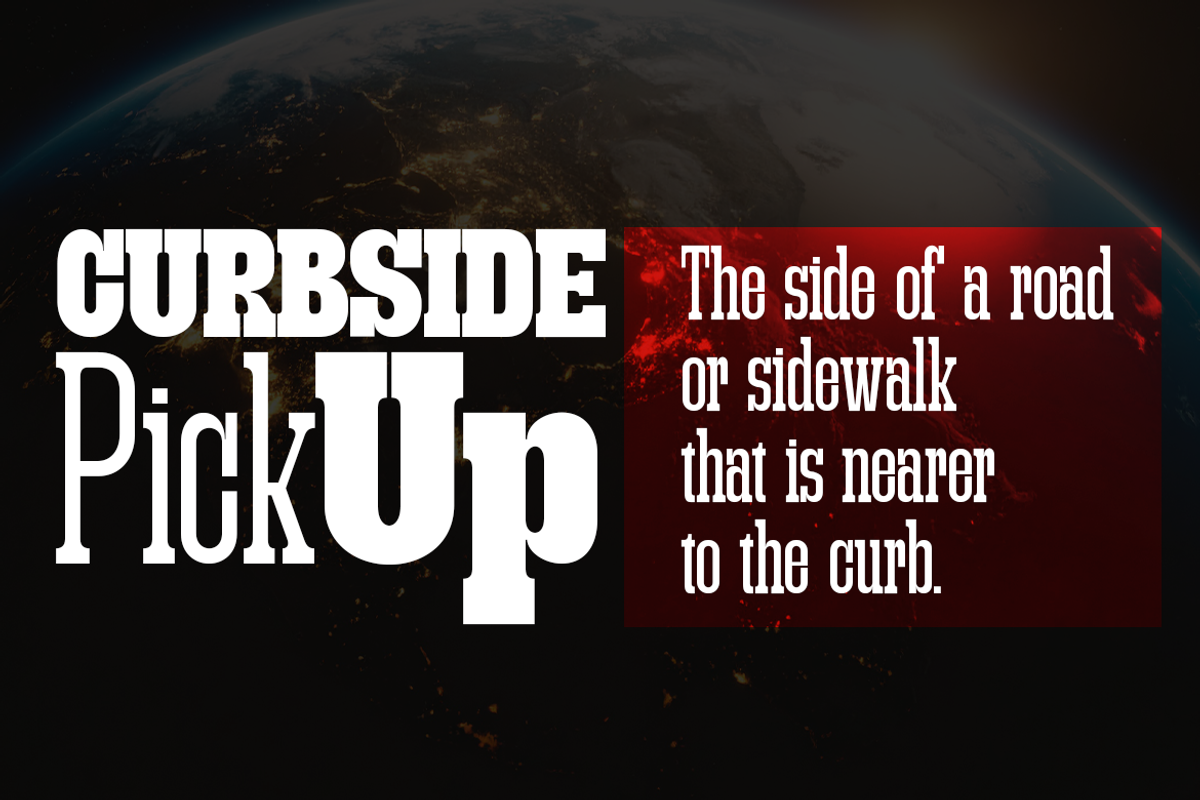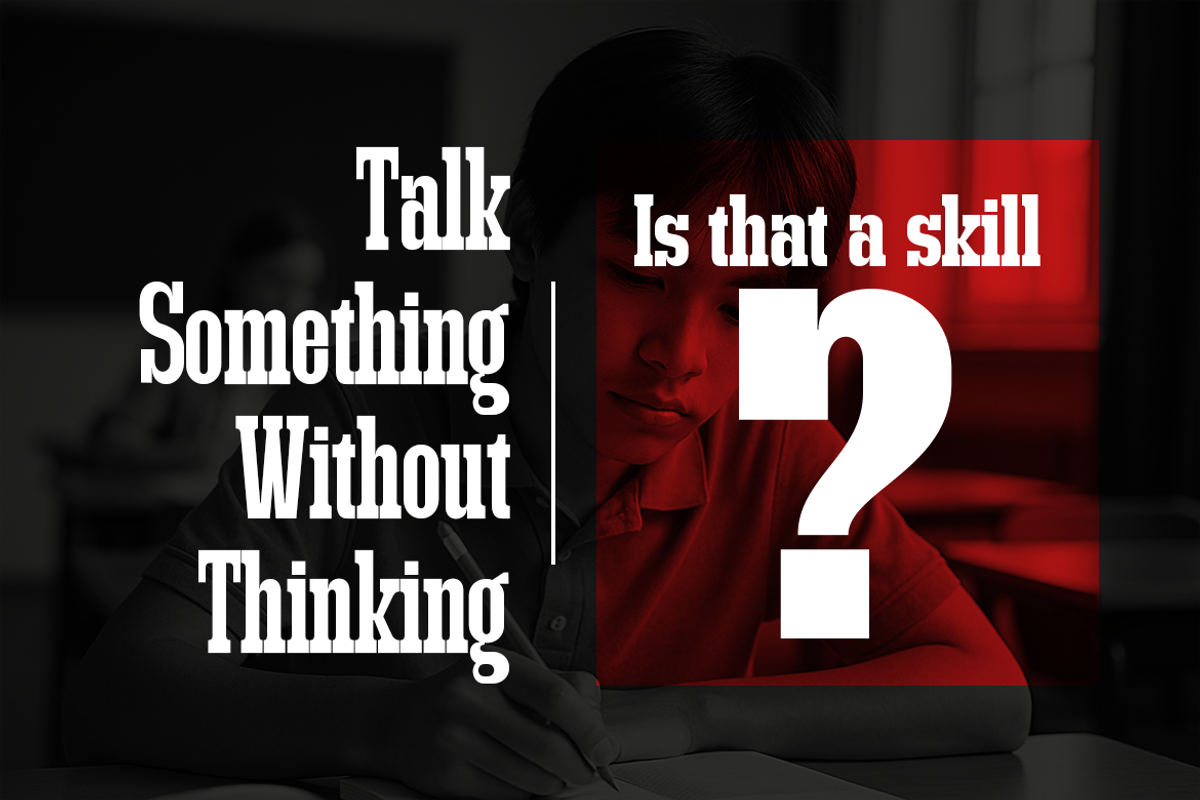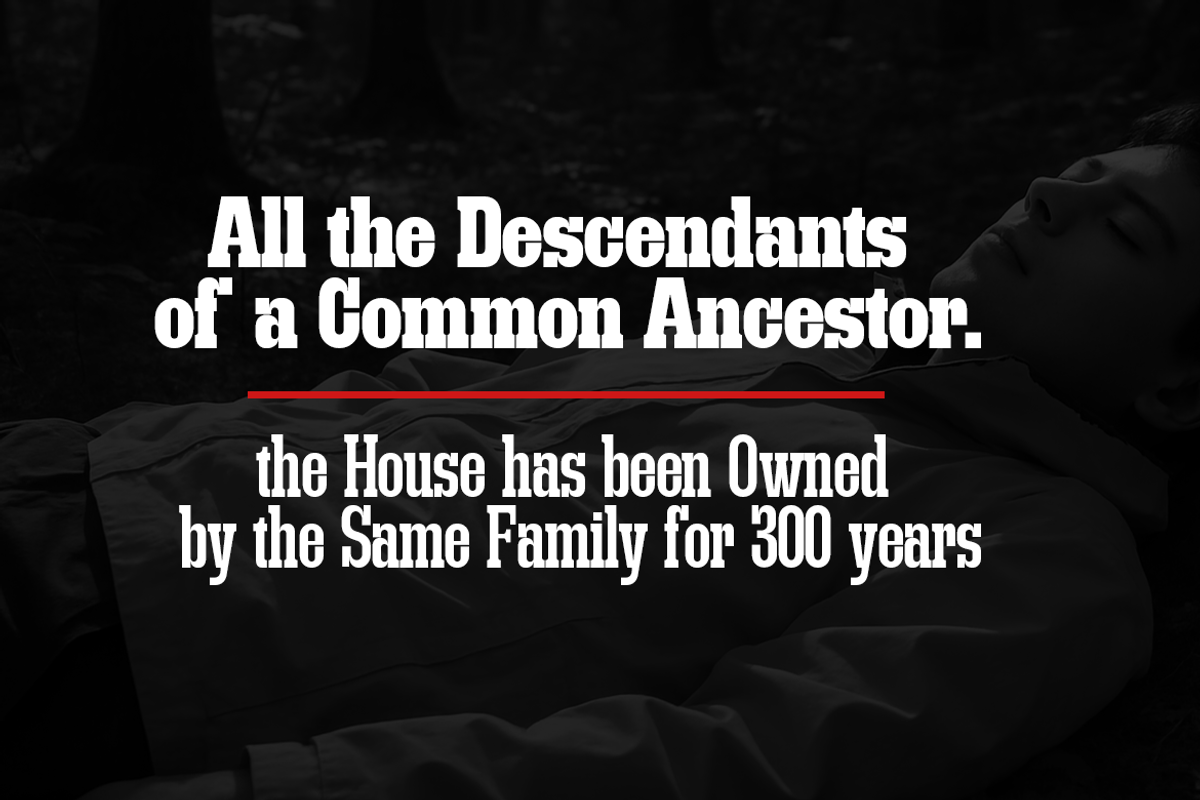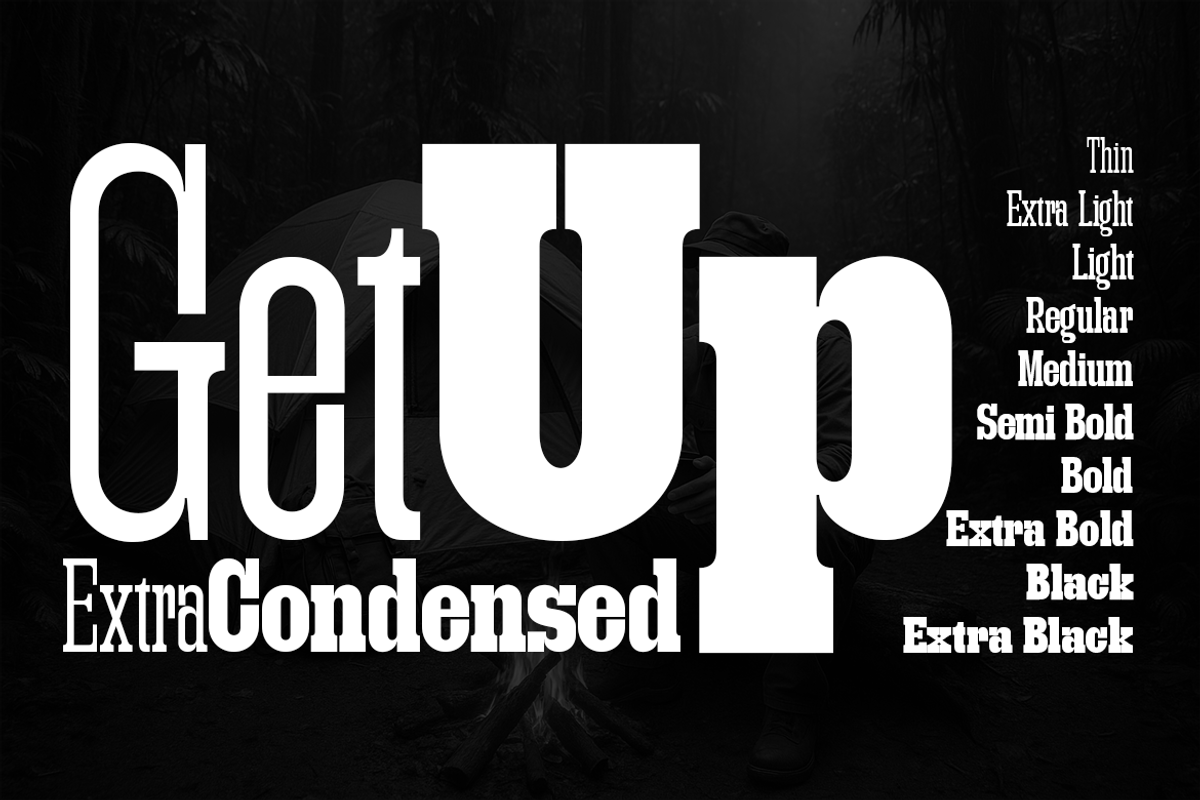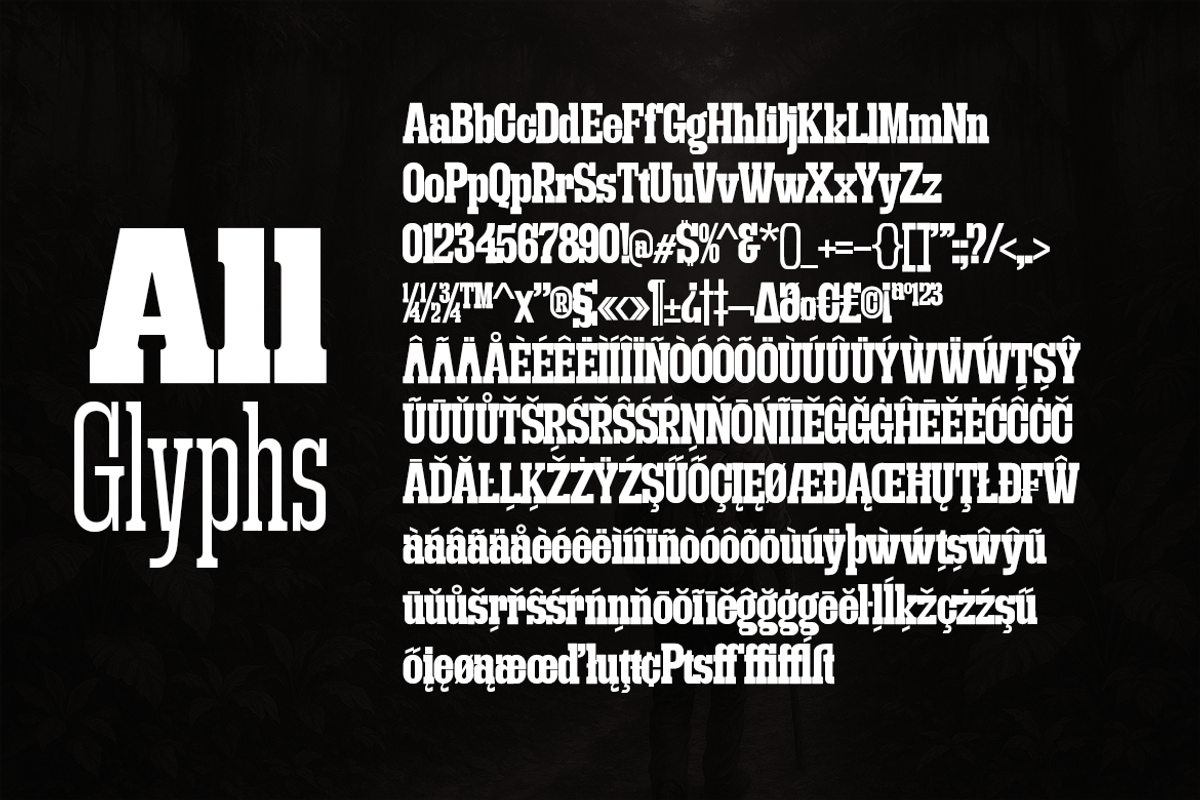
GetUp – Extra Condensed
GetUp – Extra Condensed (10 Weights: Thin–Extra Black)
Description: GetUp Extra Condensed offers a slightly more flexible narrow slab serif silhouette while keeping a bold, controlled presence. With 10 weights ranging from Thin to Extra Black, this category is ideal for magazine titles, editorial promos, energetic ads, and tech-inspired branding. Strong geometry, tight spacing, and striking slab serifs create a confident tone across all weights. Whether you choose ultra-light refinement or heavy dramatic impact, this family stays crisp, modern, and highly readable.